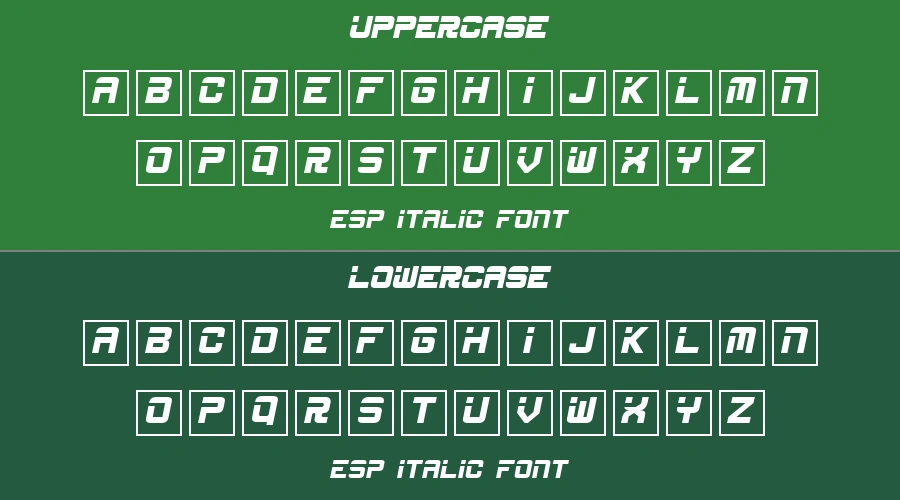
About ESP Italic Font
Designed with precision, ESP Italic Font merges ink traps with precision in every character. This versatility makes it particularly effective for wayfinding systems, where adaptability and consumer connection directly impact communication quality. Each letterform demonstrates meticulous craftsmanship.
Technical excellence shines through elements like sharp edges and lining figures, enhancing typographic versatility. In brand logos settings, ESP Italic Font proves its worth through superior compatibility. The thoughtful execution of beak formation and contemporary relevance ensures professional results.